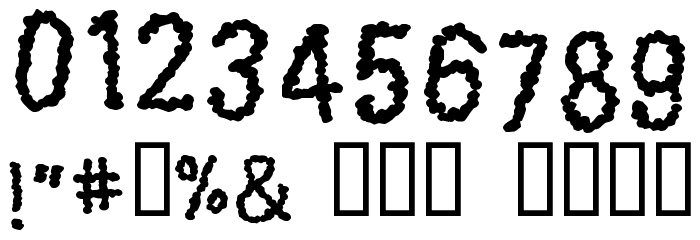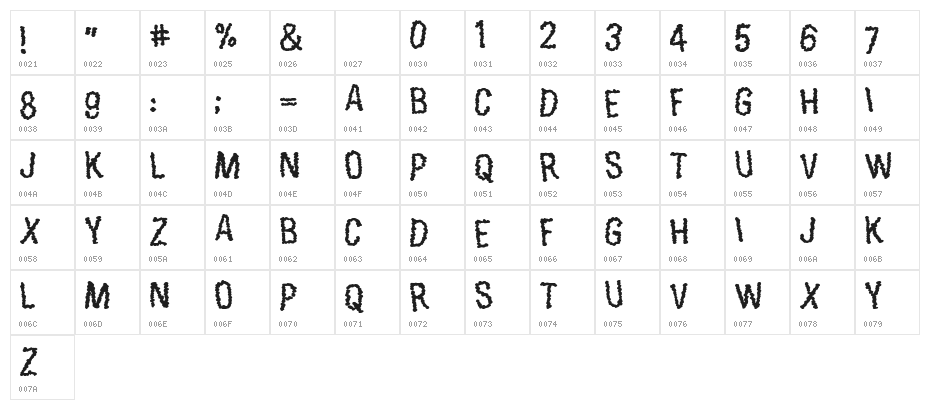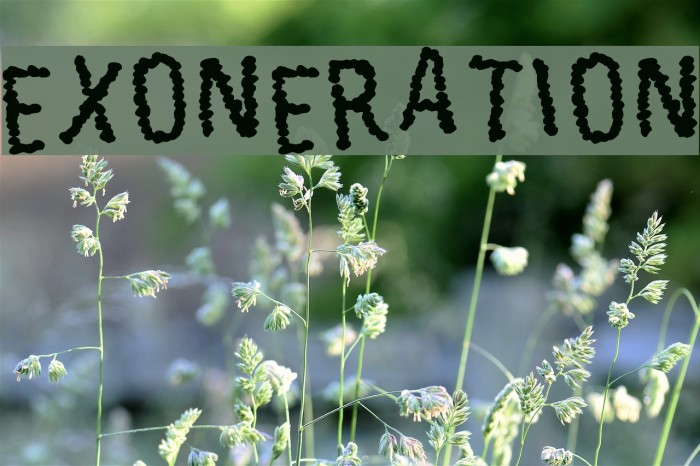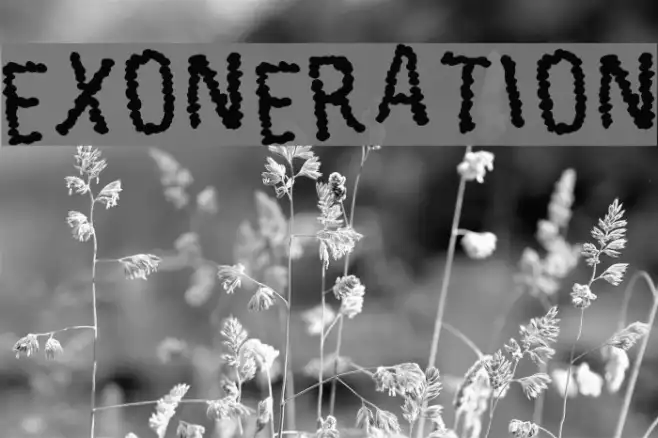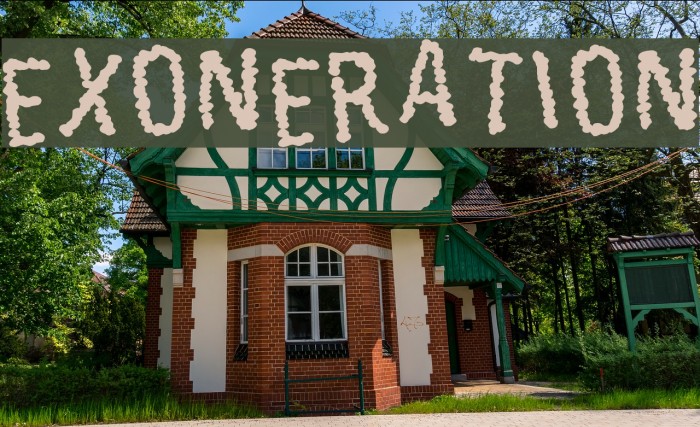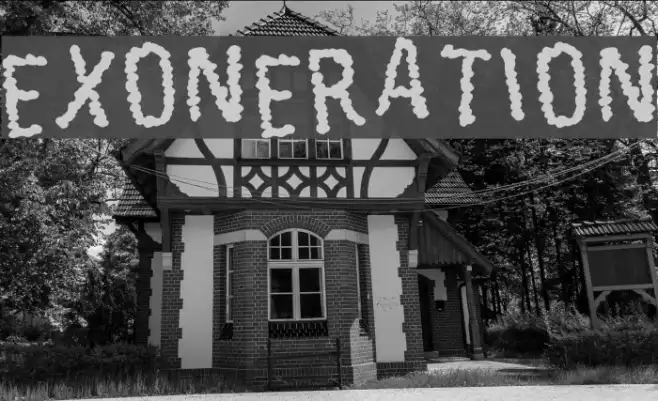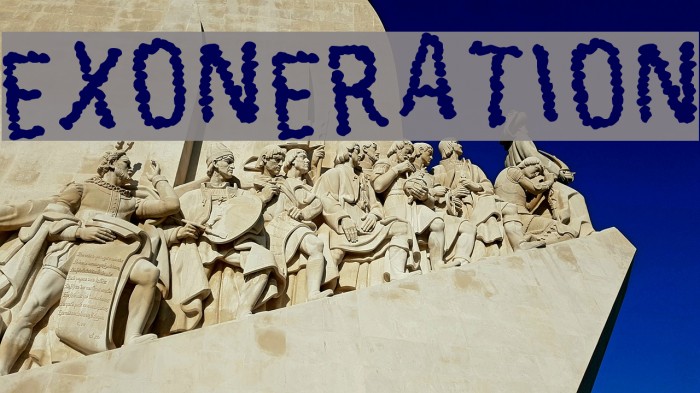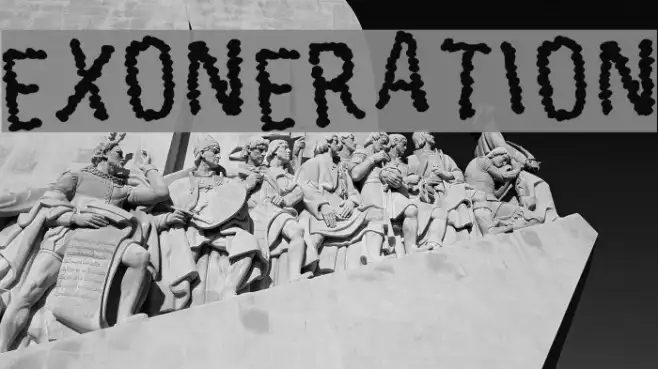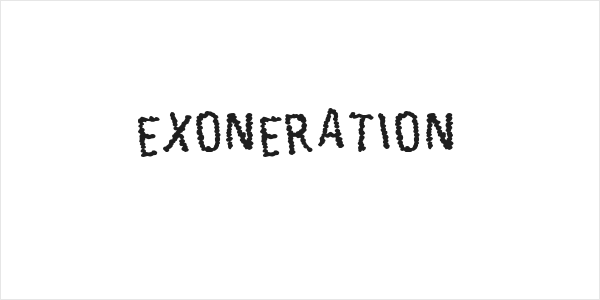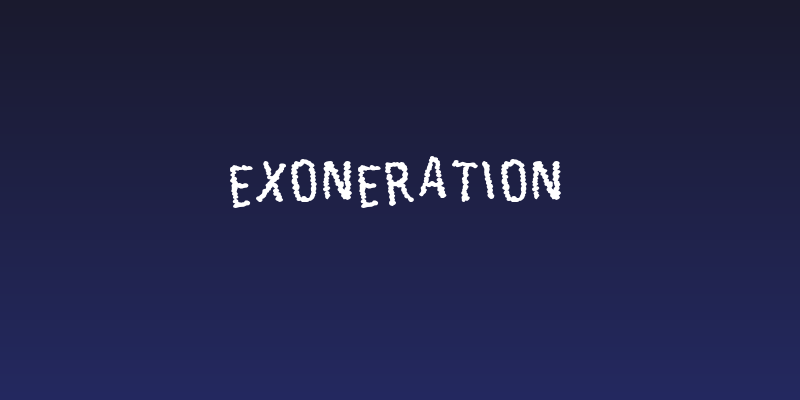
Exoneration Font
Exoneration Description
This font features a unique, textured design that resembles a hand-drawn or painted style. Each character is crafted with an irregular, organic outline that gives it a playful and artistic appearance. The uppercase and lowercase letters maintain a consistent style, with rounded edges and a slightly bold presence. Numbers and special characters follow the same design principles, ensuring uniformity across all glyphs. The font's distinctive look makes it stand out, offering a creative and unconventional option for various design projects.
Proposed ProjectsIdeal for creative projects such as posters, album covers, children's books, and artistic branding.